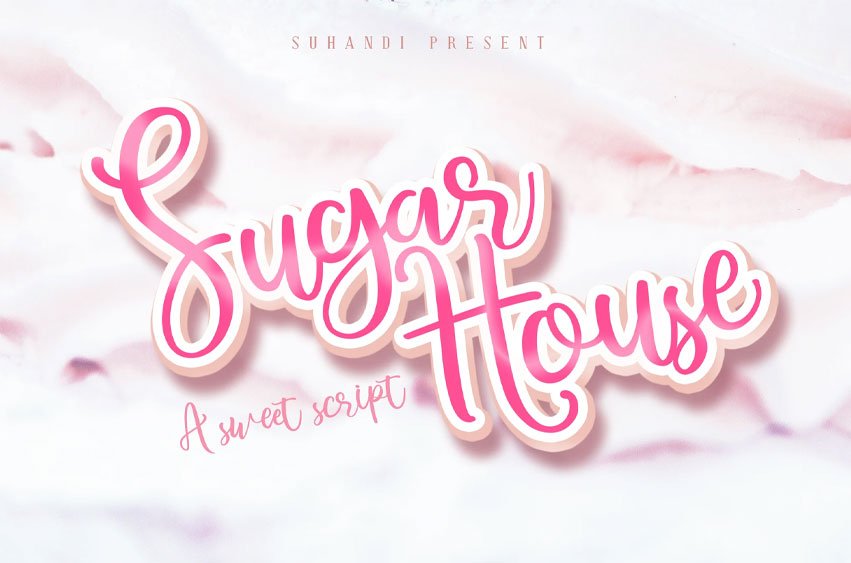
Sugar House Font
Sugar House Font is a beautiful handwritten & designed script font, has a bold, classy & sophisticated feel.
• Basic Ligatures
• Handwritten font